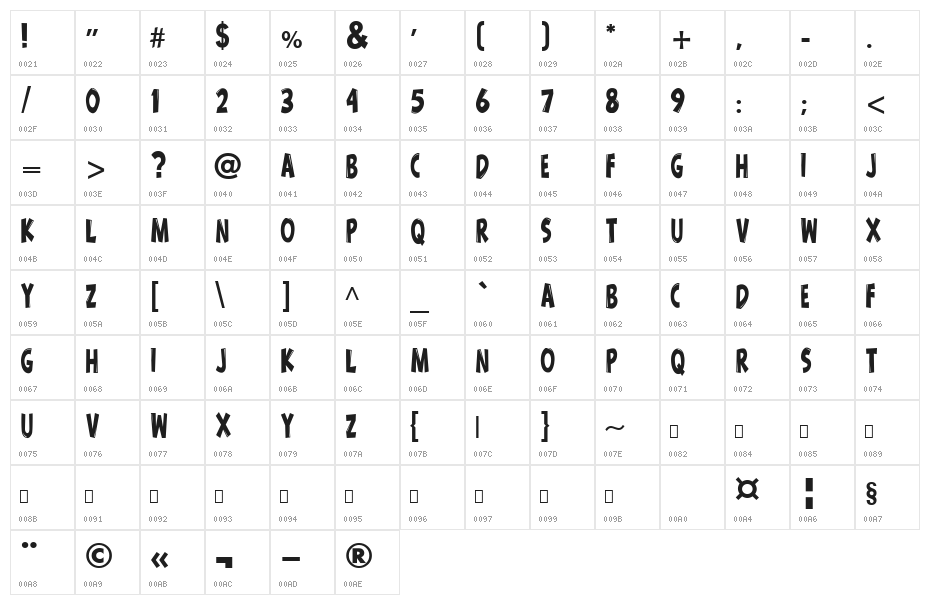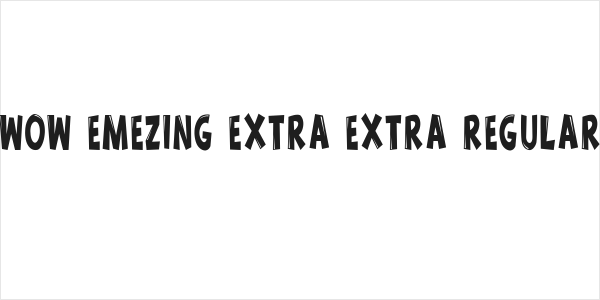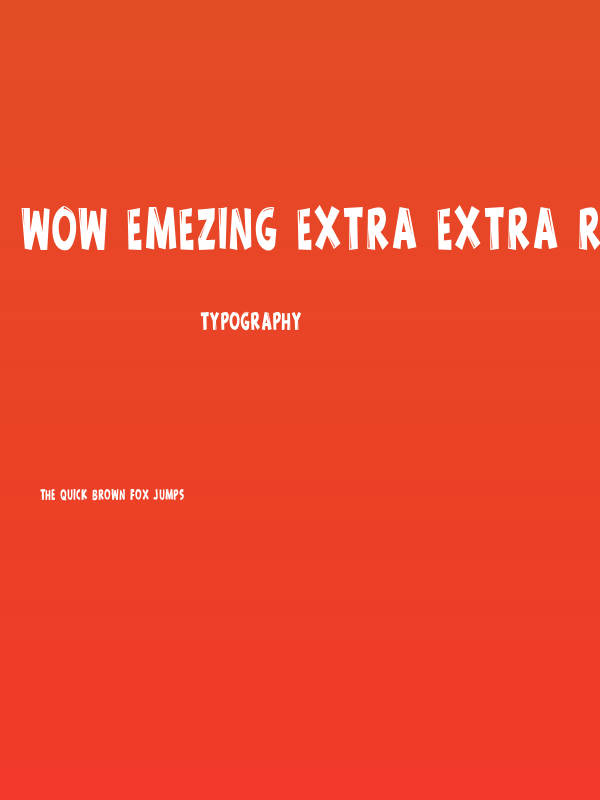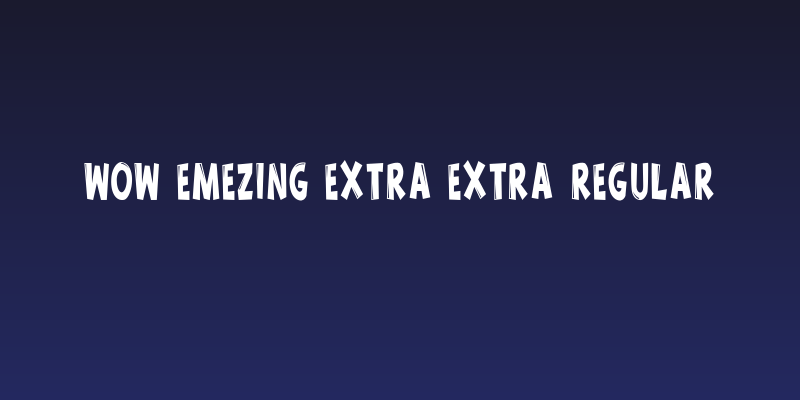
Wow emezing extra extra regular Font
Wow emezing extra extra regular Description
This font features a bold and playful style with a dynamic, energetic appearance. The characters are slightly slanted, giving a sense of movement and liveliness. Each letter is uniquely crafted with varying stroke widths, adding a touch of whimsy and creativity. The uppercase and lowercase letters maintain a consistent style, with exaggerated curves and angles that make them stand out. The numbers and special characters follow the same playful design, ensuring a cohesive look across all text. This font is perfect for projects that require a fun and engaging visual impact.
Overall StylePlayful, Energetic, Whimsical
Use CaseHeadlines, Posters, Branding
Proposed ProjectsIdeal for children's books, comic strips, playful branding, and eye-catching posters.